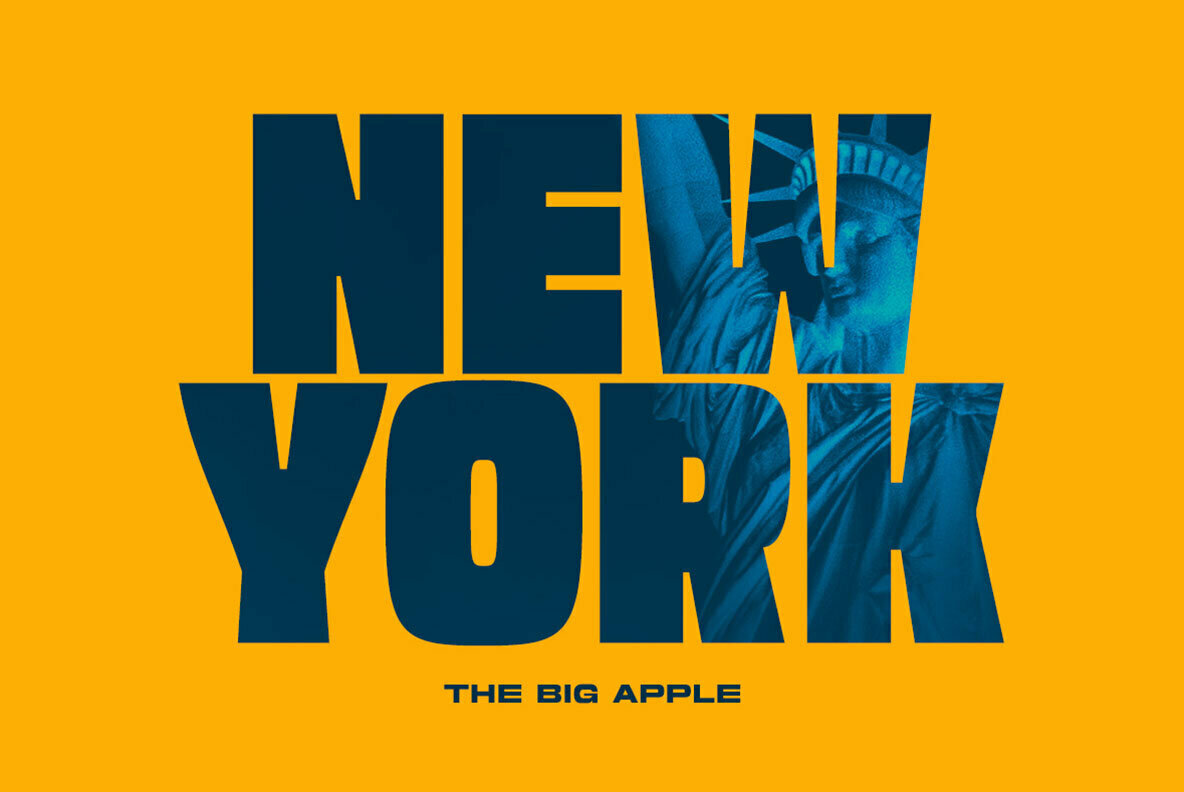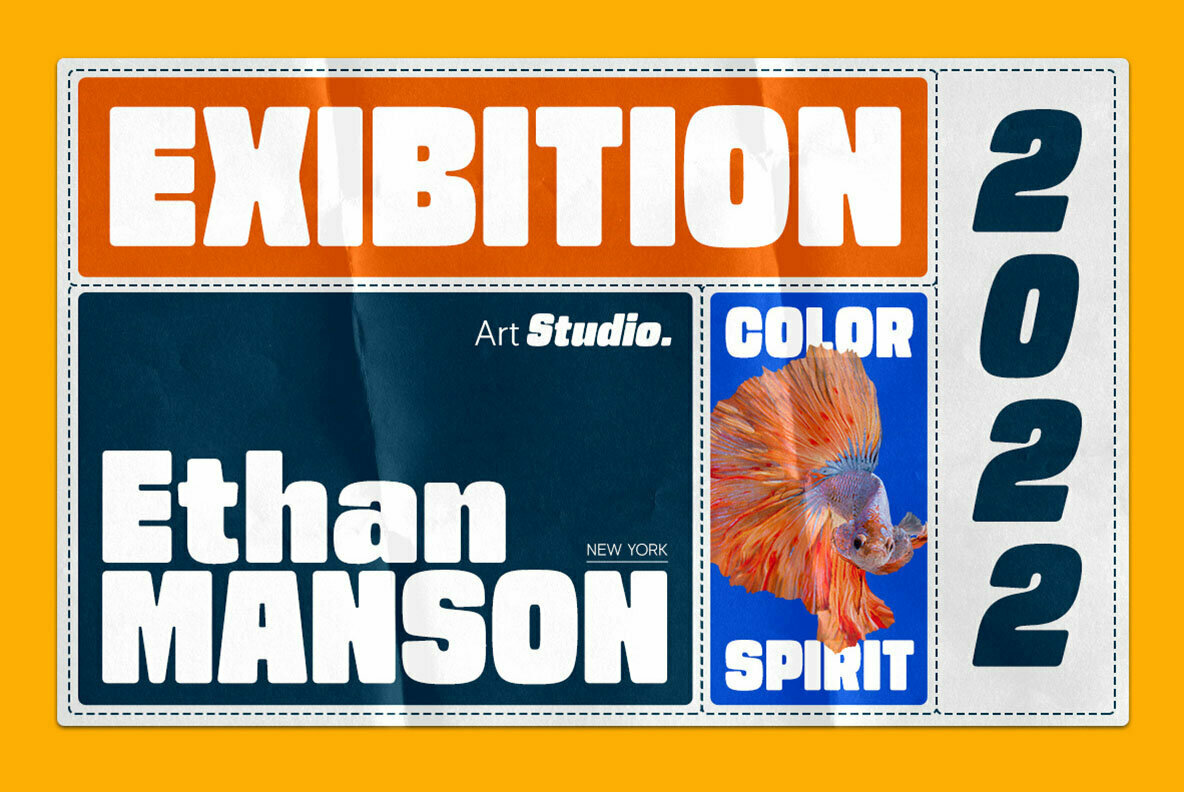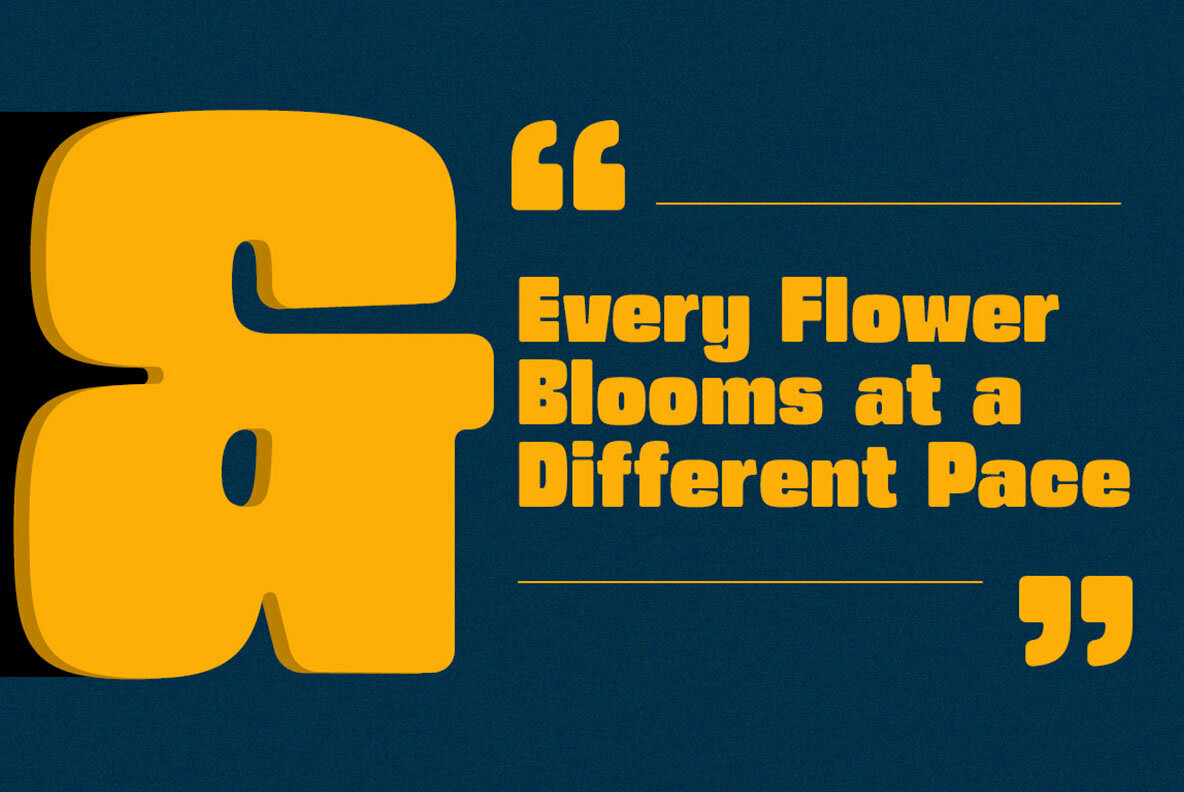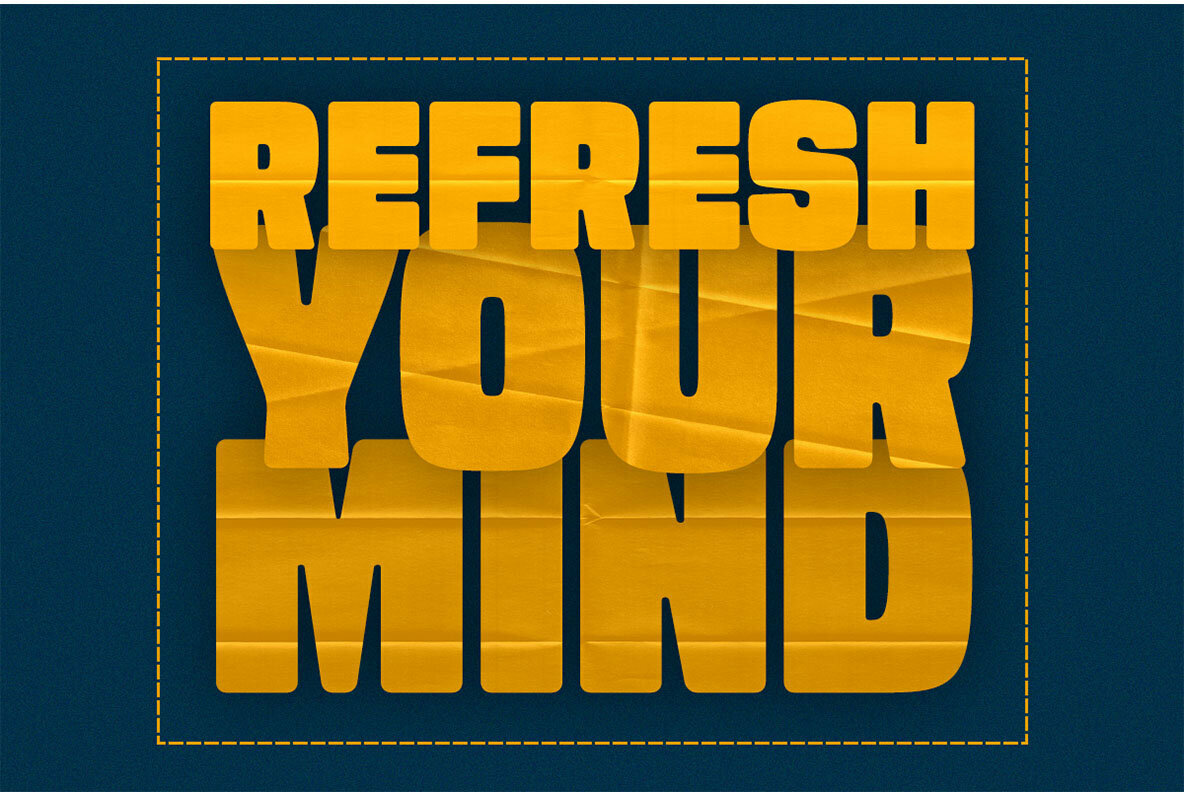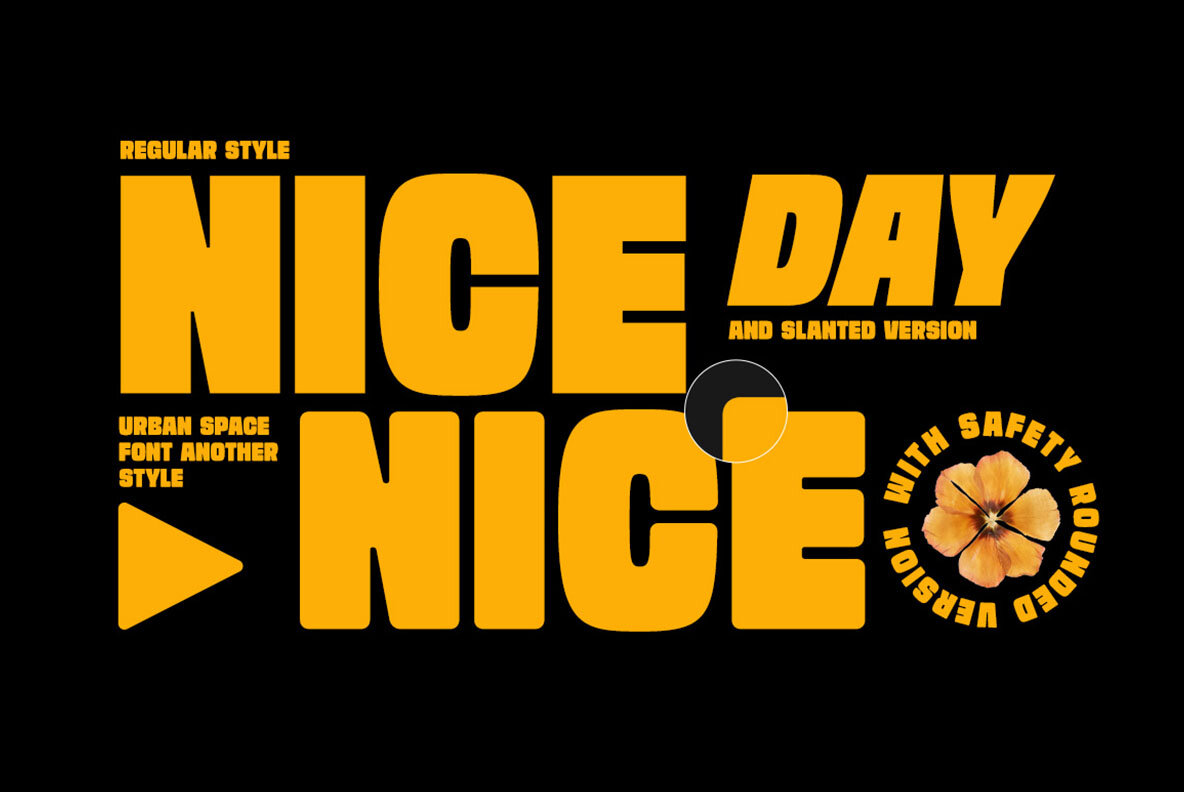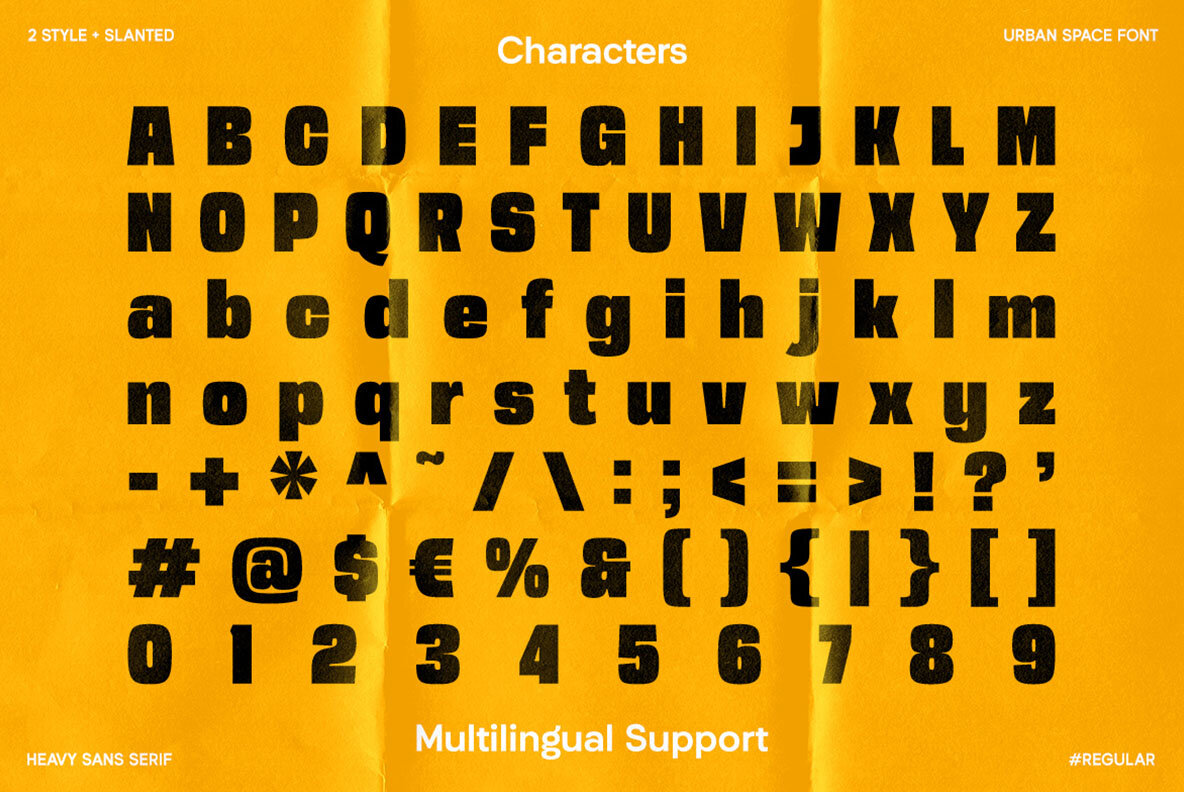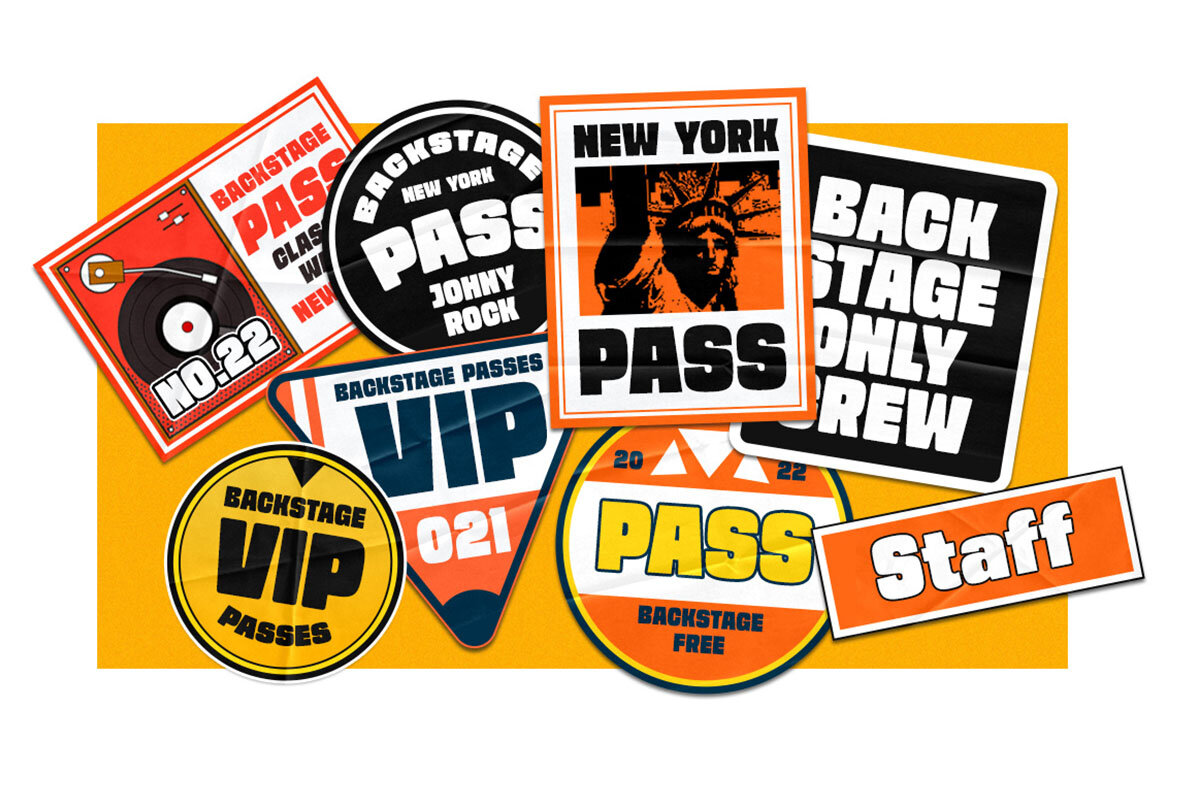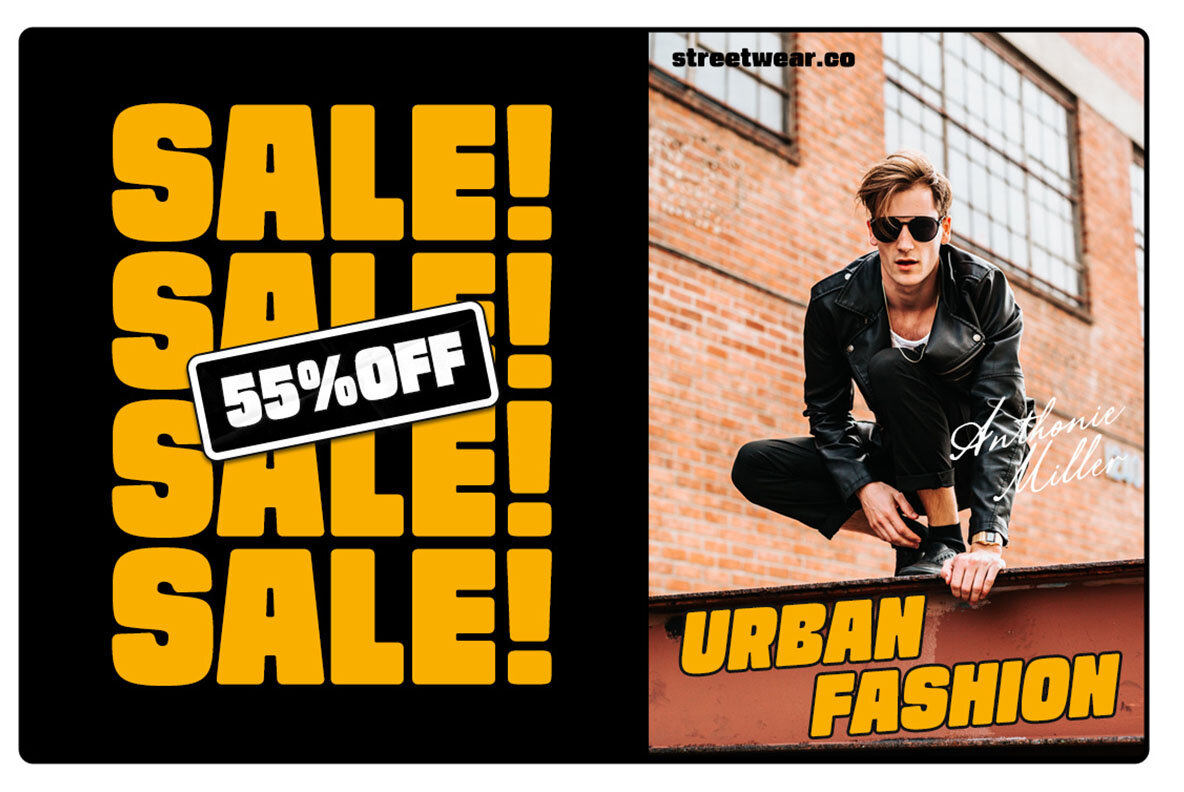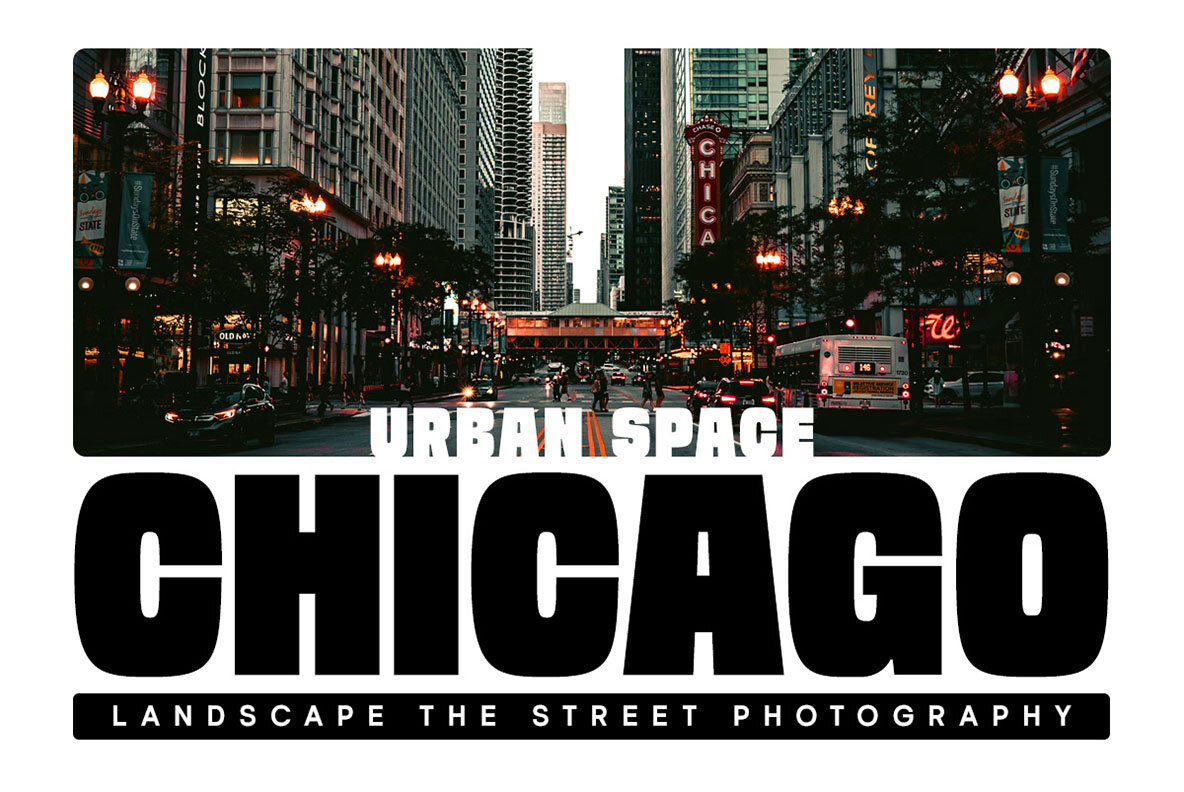
Urban Space Font
Urban Space is the perfect typeface to use in any project that needs an attention-grabbing, bold look. This versatile and elegant family has clean lines which work well with most projects—especially those where you want your text highlighted!
- Lowercase and uppercase
- Numbers and punctuation